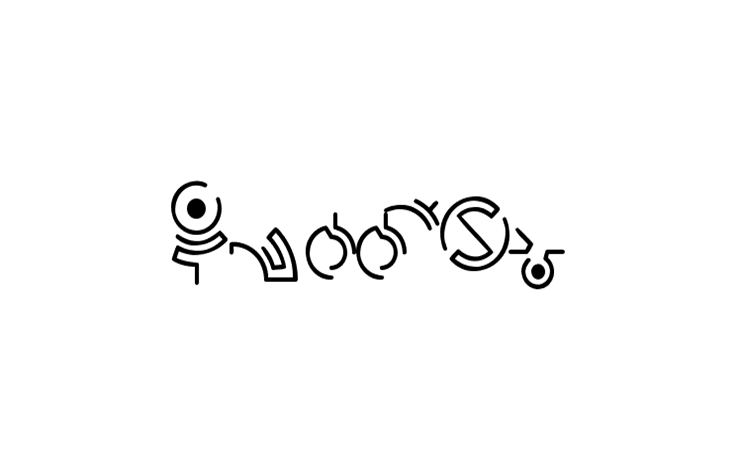
Hymmons Font is a various font that is completely created with symbols. These symbols are in different shapes those derived from different objects.
Akira Tsuchiya took the charge of designing it firstly. After that, there are many designers who try this great quality font in various projects.
One of the interesting features of this font is that you can easily create different patterns and create unique shapes. That’s why it is truly a unique font of its kind.
You can see that this would be a great opportunity for those who want a unique touch in design.
With this unique typeface, you can create game graphics, game development, product designs, product packaging, posters, cartoon posters, electronic elements, company secret projects, tattoos, and so on.
This family itself comes in a single style including regular along with True Type features. And you can choose icons from this font when you type some words on any design.